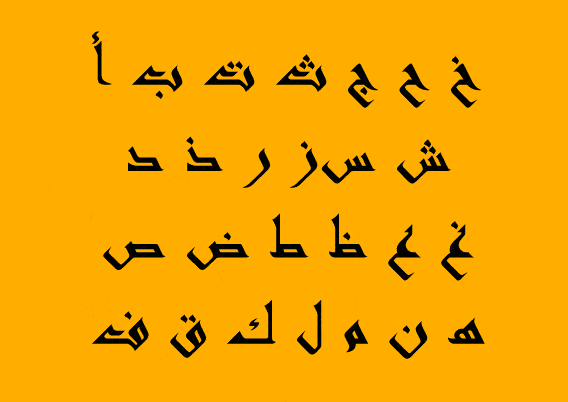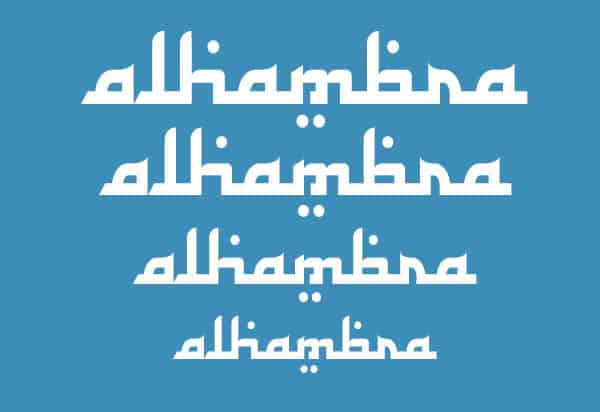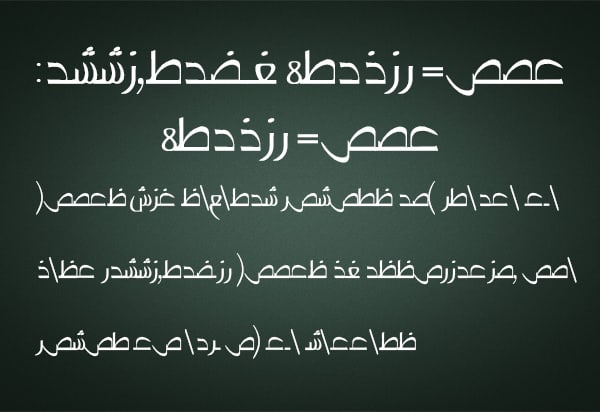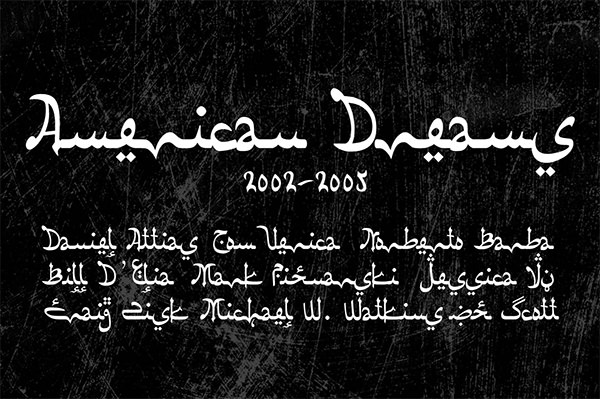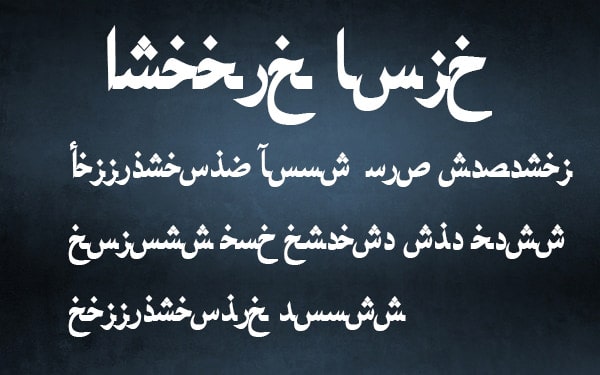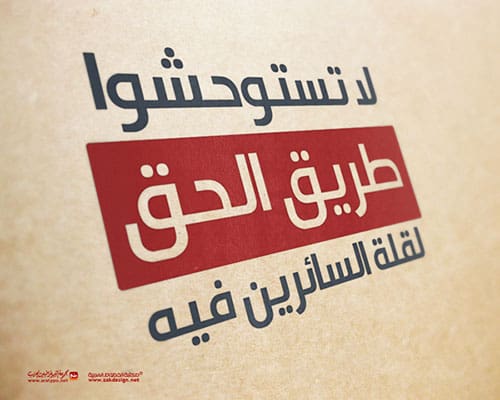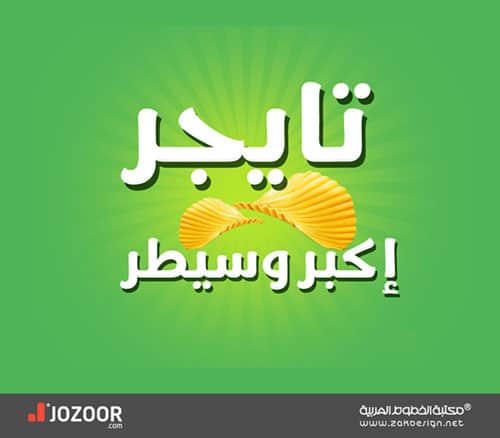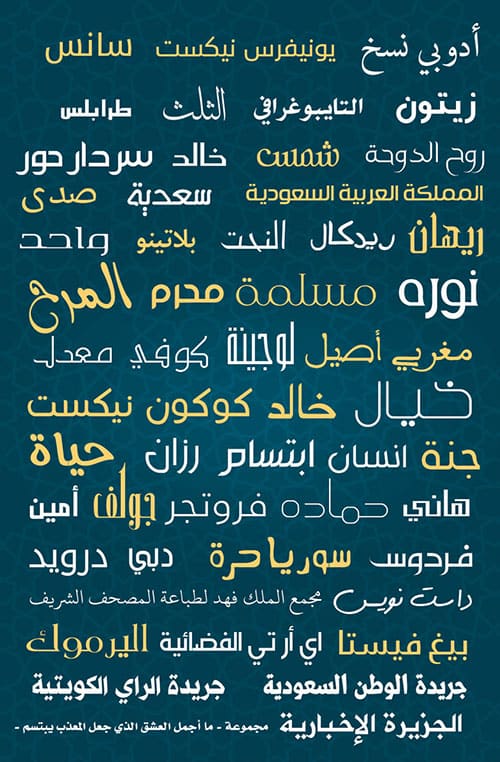
Arabic Calligraphy Fonts and Typography Resources. Arabic calligraphy font resources can support invitations, headings, editorial design, and other projects that require appropriate Arabic typography. First distinguish fonts that genuinely support Arabic script from Latin display fonts inspired by Arabic shapes. A visually similar preview does not establish that the file can correctly render Arabic words.
Test with the actual language and text needed for the project. Arabic-script coverage, joining behavior, punctuation, and the application's text support affect the result. A font selected from an English sample may not meet the needs of an Arabic paragraph or a mixed-language layout.
Build the document around its purpose
Script coverage. Check whether the font includes the Arabic characters, numerals, and marks required by your text.
Text behavior. Review joined letters and right-to-left presentation in the application used for the final artwork.
Readability. Choose a style suited to the text length. Decorative calligraphy can work for a title while simpler text handles details.
Prepare and review your version
- Prepare the final text and identify the scripts it uses.
- Test the text in the intended application and ask a competent reader to review it.
- Proof the exported or printed result before distribution.
Putting the layout to work
For a bilingual event invitation, the Arabic title can use a suitable calligraphic style while the date, location, and contact details remain highly readable. Review both language versions for meaning and alignment. Do not assume a decorative Latin font can replace genuine Arabic text.
Adapt the layout to the situation
A calligraphic title face can provide emphasis. A restrained Arabic text face is more suitable for longer passages. A Latin display face inspired by Arabic forms belongs to a different design use.
Test the exact text before exporting
Installable fonts, layered effects, and flattened previews need different workflows. Identify the resource before opening it, retain the included license, and test the actual text rather than a convenient demonstration word. Missing characters, substituted fonts, and unusually wide letters can change the layout considerably.
Keep an editable source with live text where practical, and review the exported output separately. If a printer or collaborator needs font files, check that the license permits sharing them. Providing a finalized image or appropriately prepared output may be more suitable than distributing the original font package.
Before sharing the finished version
Avoid reversing text manually to compensate for a layout problem. Do not assume a font name proves language coverage or that free means unrestricted commercial use. Check missing glyphs and misplaced marks in the actual output.
Modern Arabic Calligraphy Fonts
Amazing Arabic Calligraphy Fonts
Invitation heading composition
Editorial title composition
Frequently asked questions
Do all Arabic-style fonts support Arabic?
No. Some primarily contain Latin characters with an Arabic-inspired appearance. Test the exact script and text.
Why does text look different after export?
Font substitution or application support can affect the result. Review the exported output and confirm the required fonts are handled appropriately.